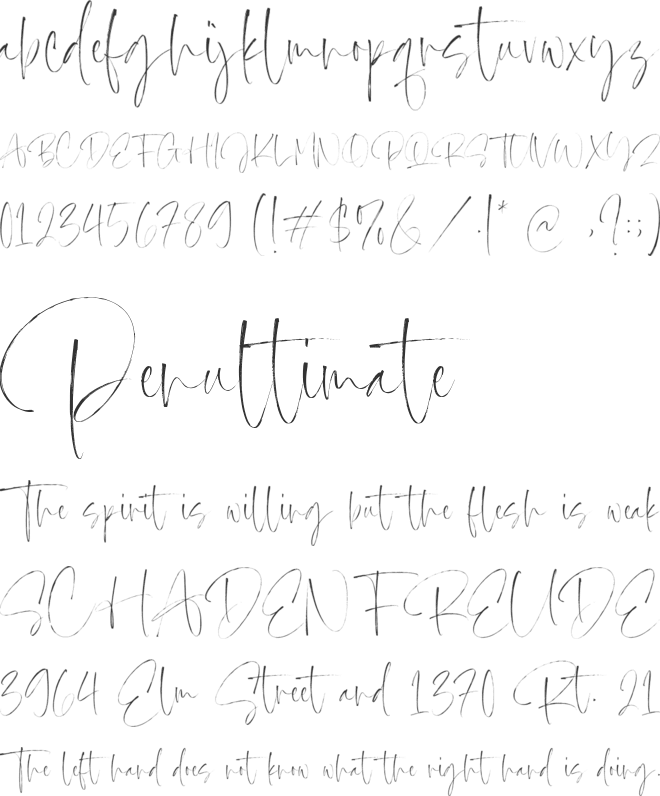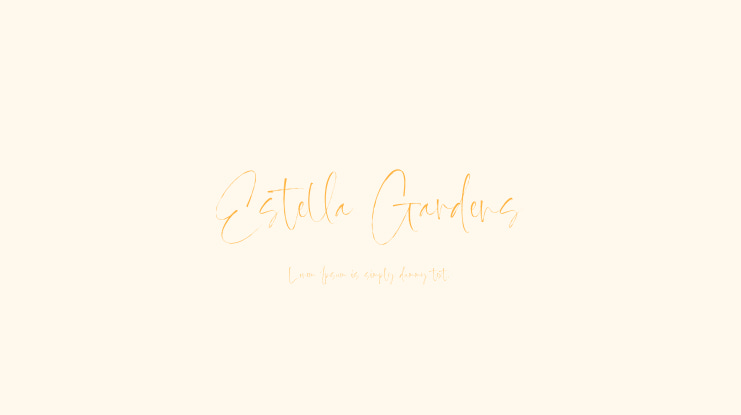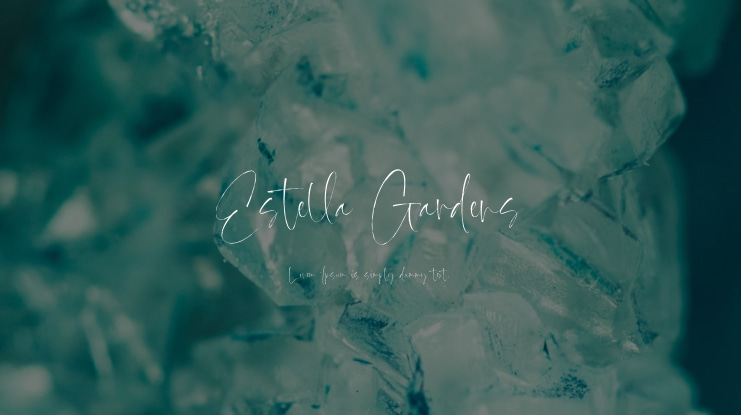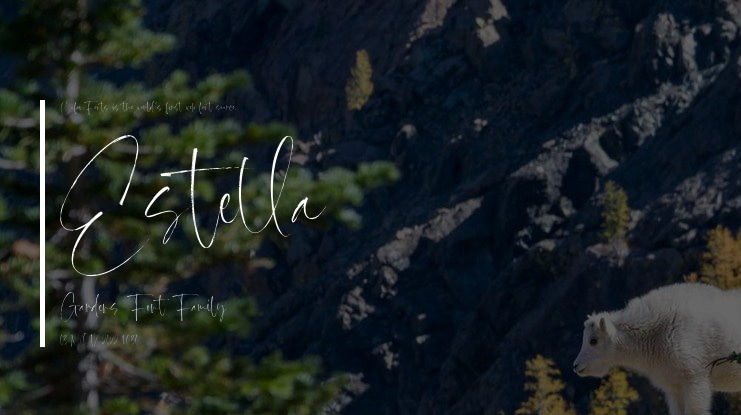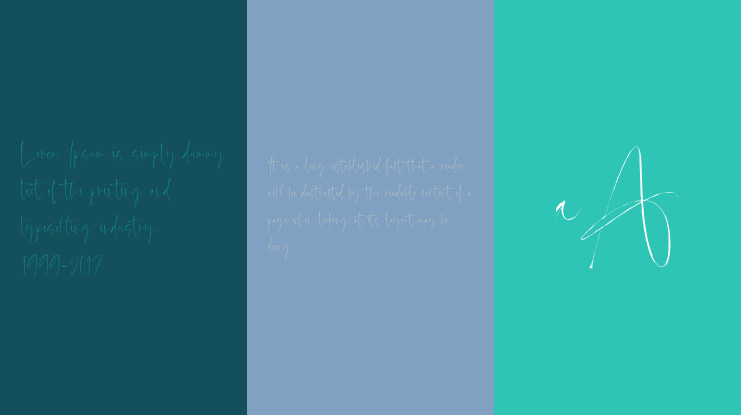
Estella Gardens Font
Introducing Estella Gardens by Timurtype Studio!
Estella Gardens is a beautiful handbrushed script font that captures the timeless elegance and charm of handwritten lettering. The font showcases the artistry of handbrush script fonts, where each stroke tells a unique story and adds a captivating twist to your design. With its organic lines and graceful curves, Estella Gardens effortlessly combines modern sophistication with artisanal craftsmanship, creating a harmonious balance that enhances any project with refined beauty and individuality. Experience the transformative power of hand-brushed script fonts as they turn your words into visual poetry, capturing the essence of your message with a touch of bespoke charm.
Estella Gardens Font also supports multilingualism, ensuring that you can use it for a wide range of languages and projects.
Key features of the Estella Gardens font:
• Full set of standard alphabets and punctuation